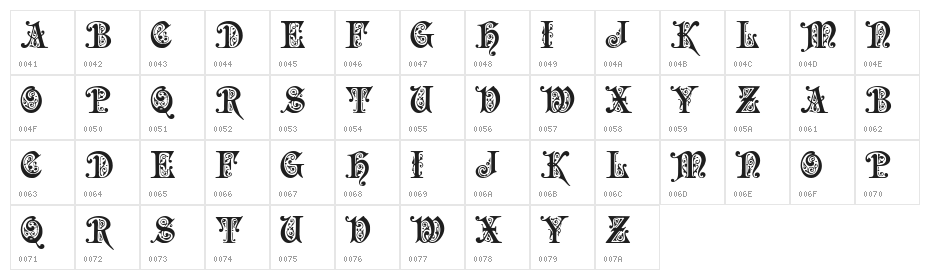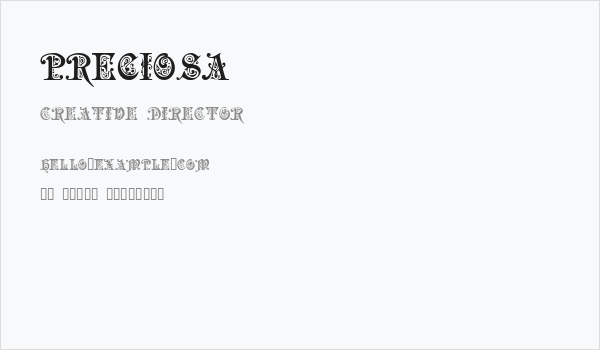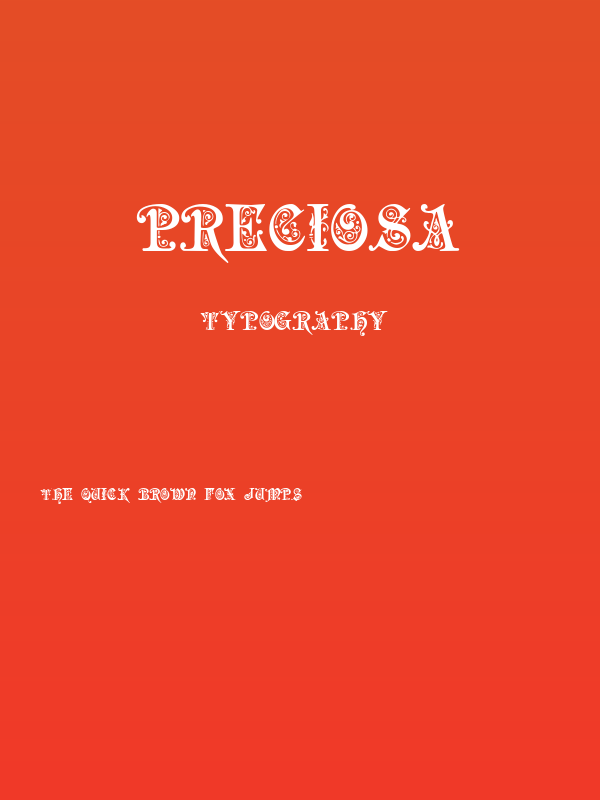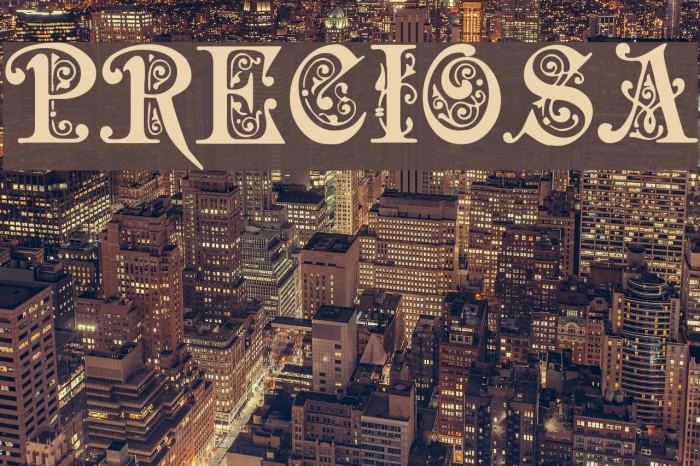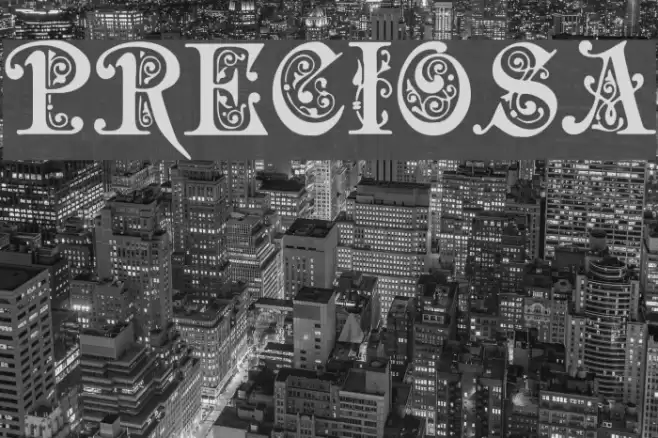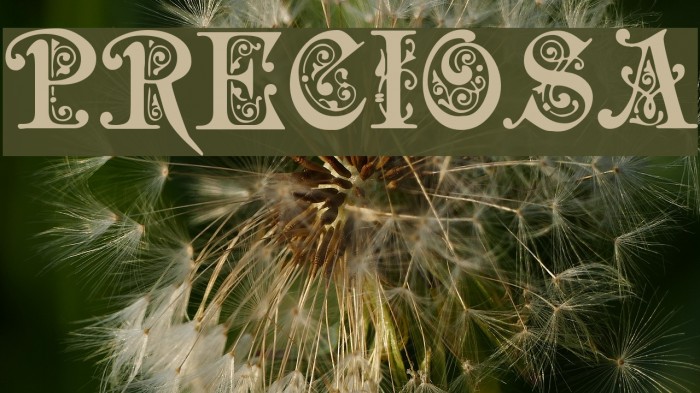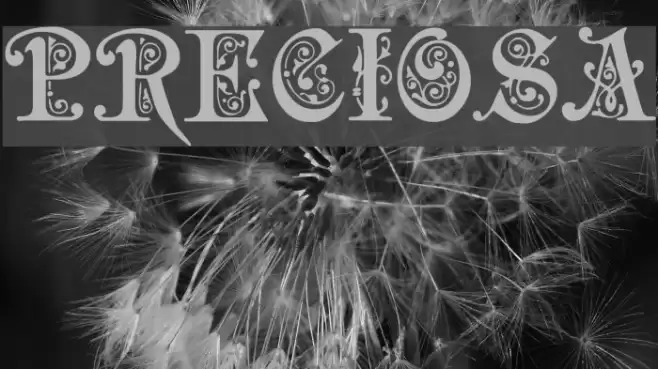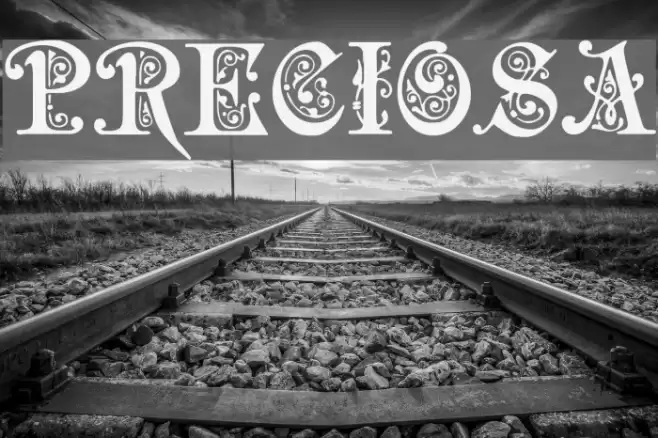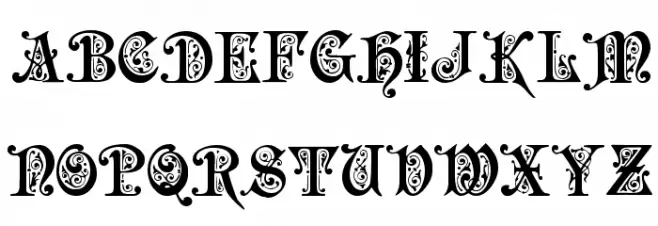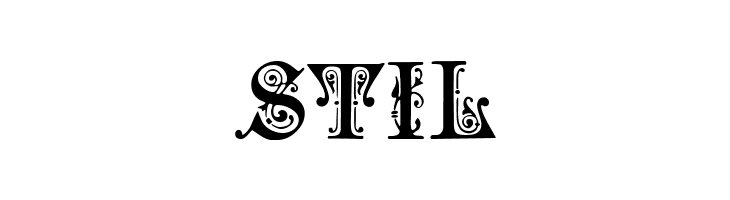
Preciosa Font
Preciosa Description
This font features an ornate and decorative style with intricate detailing within each character. The uppercase letters are embellished with flourishes and swirls, giving it an elegant and sophisticated appearance. The design is reminiscent of vintage or Victorian aesthetics, making it ideal for projects that require a touch of classic elegance. The characters are bold and have a strong presence, with a medium contrast in stroke thickness. The font is primarily suited for decorative purposes rather than body text, as its elaborate design may affect readability at smaller sizes.
| Overall Style | Vintage |
| Use Case | Headlines, Logos, Decorative text |
| Proposed Projects | Ideal for wedding invitations, vintage-themed posters, branding for luxury products, or any project requiring a classic and elegant touch. |